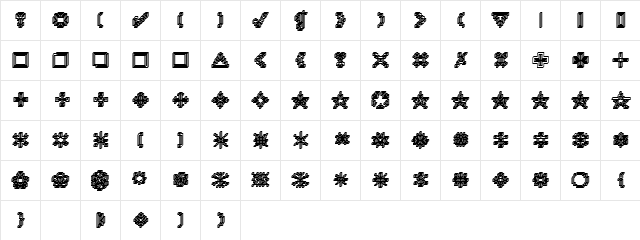
XRough04 Becker Regular
Design Context for XRough04 Becker Typeface
XRough04 Becker embraces imperfection — its rough, textured character adds raw authenticity to designs that want to feel lived-in and unconventional.
Suited to punk-influenced zines, underground music branding, streetwear, and raw, anti-corporate design.
Pro Tip: Pair XRough04 Becker with intentionally raw or lo-fi design elements. Fighting against it with overly polished surroundings will undermine its personality.